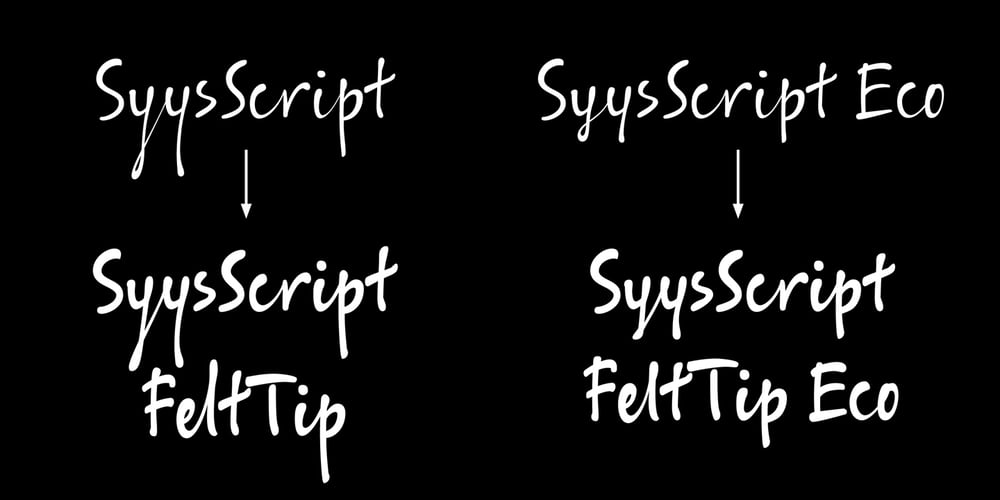
ALS SyysScript Font Family was designed by Julia Sysmäläinen and published by Art. Lebedev Studio. ALS SyysScript contains 4 styles and family package options. Handwriting of a strong Carelian personality revived: It’s autumn time once again, harvesting season, mushroom & berry time – the favourite season of my Karelian aunt Katri. A postcard she sent me more than twenty years ago had inspired me to SyysScript, “Script of Autumn” in Finnish. Katri had a very kind but also energetic personality, and I always thought her handwriting was a mirror of it. By making SyysScript I felt I could revive some of her unforgettable character. My Finnish autumn font has by now become a favourite for many and is branding fine food in both the Eastern and the Western hemisphere – even far beyond the arctic circle. “SyysScript“ is actually a growing family. For enhanced functionality in small sizes I added “SyysScript Eco” a year ago, a style with shortened extensions and simplified letterforms especially suited for packaging. And this autumn, a special one for Finland which is celebrating its 99th birthday, SyysScript grew again: Two long awaited newcomers, “SyysScript FeltTip” and “SyysScript FeltTip Eco” joined the family. They are bolder and softer than the previous styles but keep their positive, lighthearted feel. Use them to make a powerful individual mark on any background. – They are equally well suited for paper, packaging, a screen or even a concrete wall! Language support: Western and Central European, Extended Cyrillic.